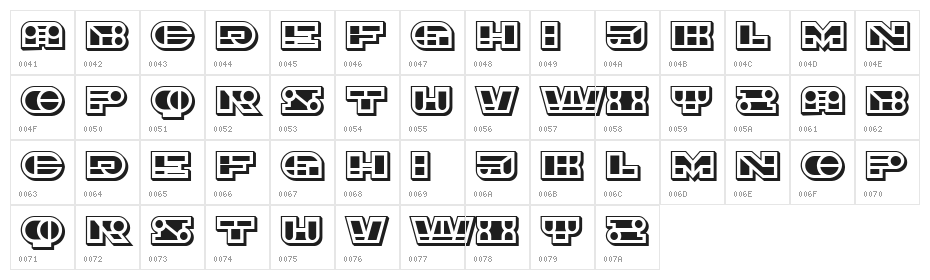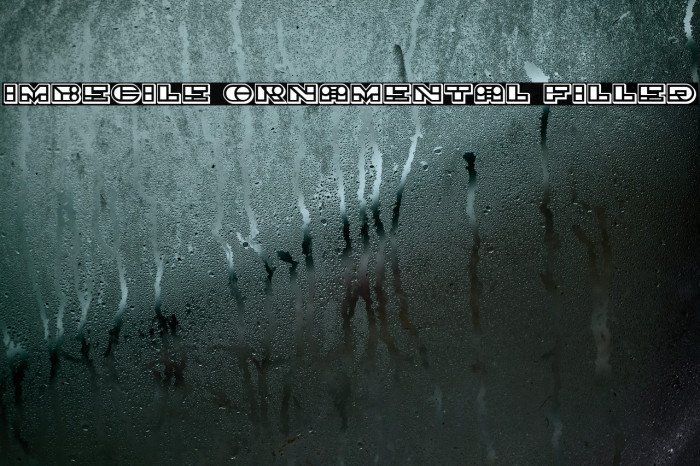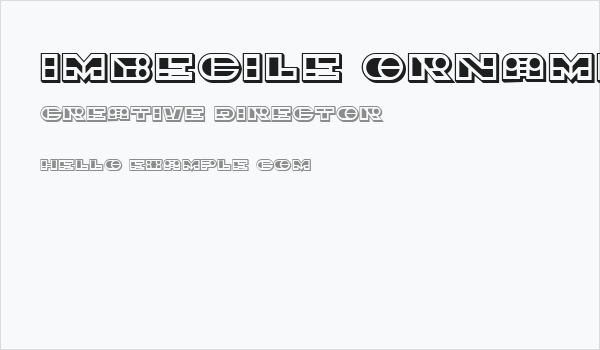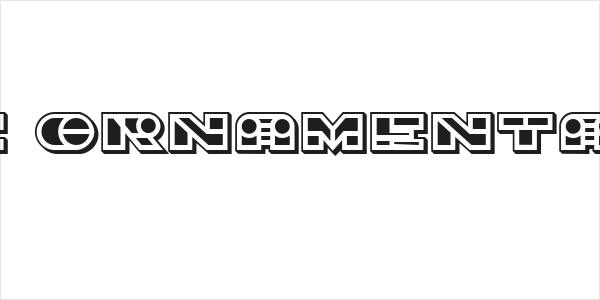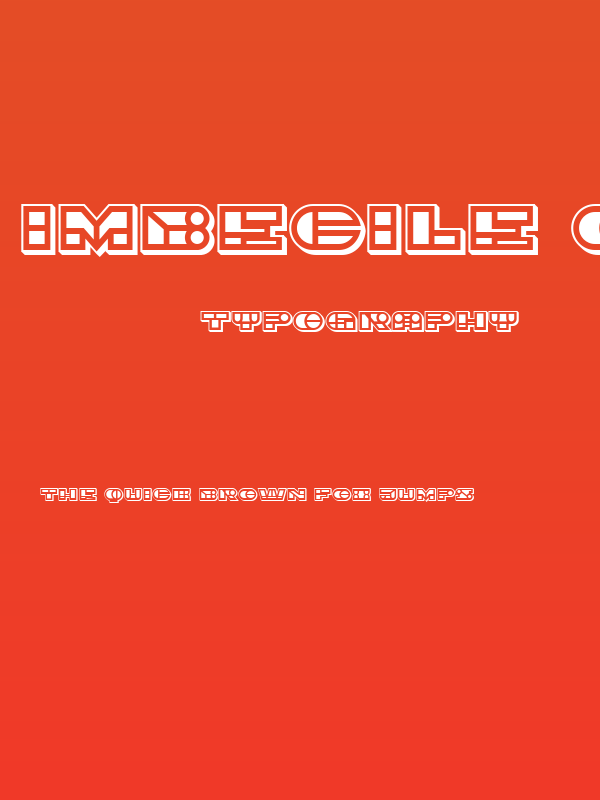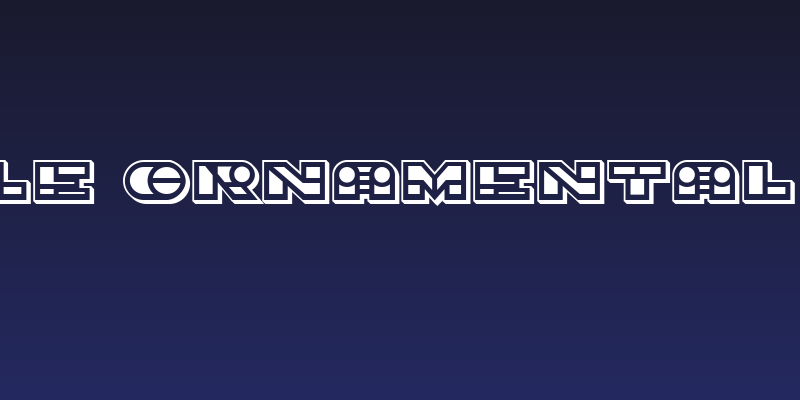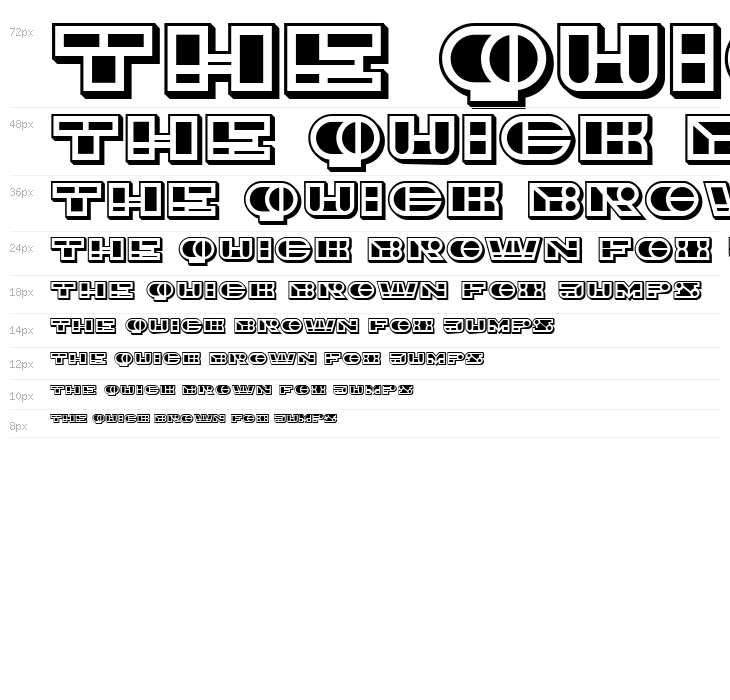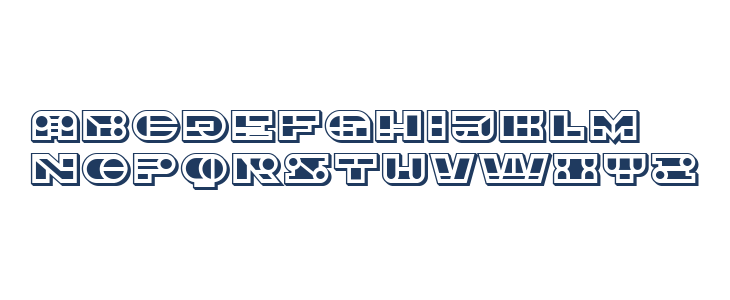
Imbecile Ornamental Filled Font
Imbecile Ornamental Filled Description
This font features a bold, decorative style with a filled ornamental design. Each character is uniquely crafted with intricate patterns and geometric shapes, creating a visually striking appearance. The letters are uppercase and exhibit a uniform thickness, contributing to a cohesive look. The font's design is reminiscent of retro and futuristic aesthetics, making it suitable for eye-catching displays. The characters are well-defined with a consistent outline, enhancing their readability despite the complex internal designs. This font is ideal for projects that require a bold statement and a touch of artistic flair.